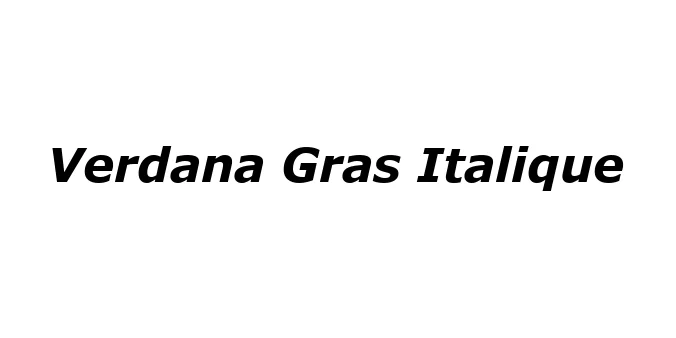
Verdana Gras Italique
Designed by Matthew Carter
Verdana Gras Italique (Verdana Bold Italic) was designed by the renowned type designer Matthew Carter for Microsoft Corporation, with manual hinting expertly handled by Tom Rickner. Released in 1996, the Verdana family was specifically engineered to address the challenges of on-screen display, featuring a high x-height, wide proportions, and generous letter spacing to ensure maximum legibility even at small sizes on low-resolution monitors.
The Gras Italique variant provides a robust and dynamic emphasis within the typeface family. Its design focuses on pixel-perfect clarity, making it one of the most successful examples of a font created specifically for digital environments. While it lacks the decorative flourishes of traditional print serifs, its functional beauty and extreme readability have made it a staple in web design and user interface development for decades.
Verdana Gras Italique Best Uses
Optimized for body text and navigation menus on digital screens.
Ideal for application dashboards where clarity is paramount.
Suitable for professional emails and digital reports requiring a clean look.